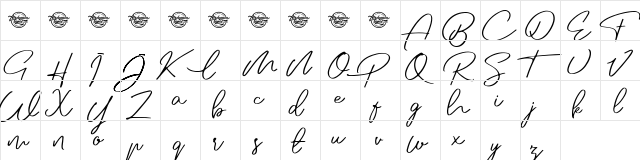
Jovanka Demo Regular
Design Context for Jovanka Demo Typeface
Jovanka Demo is a composed and adaptable typeface that performs quietly and consistently across a wide range of design contexts.